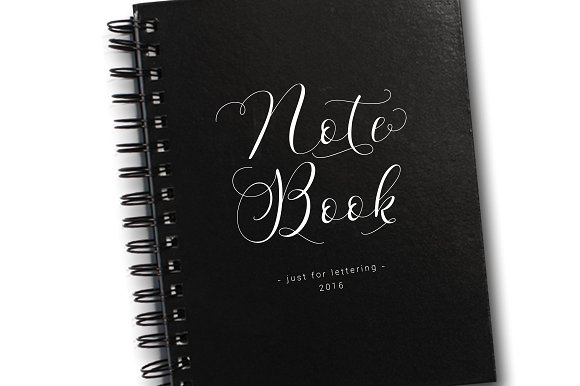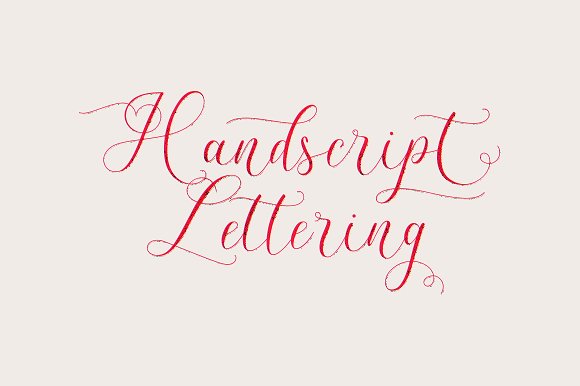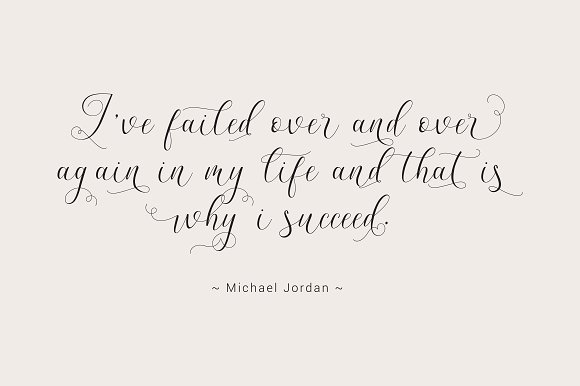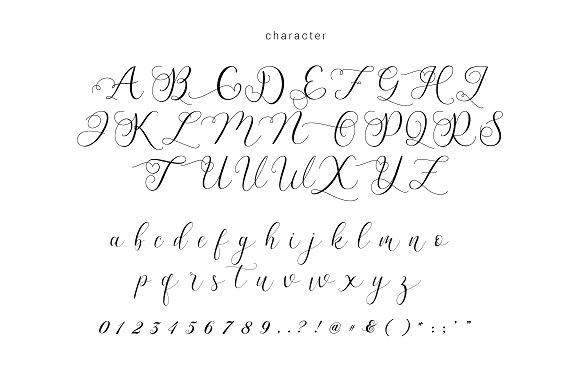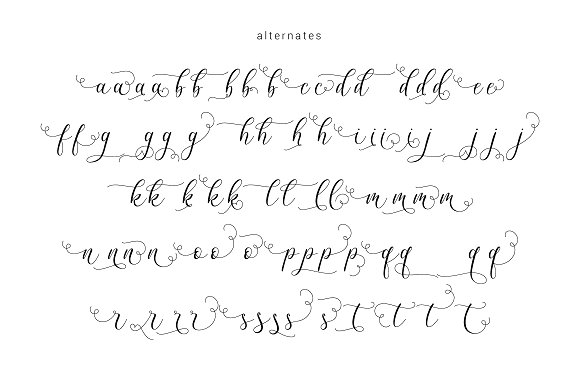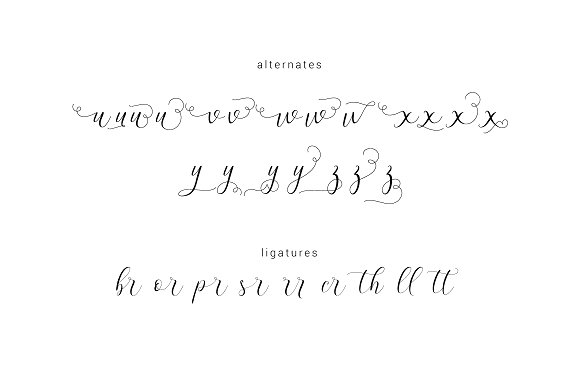
Unleashing Your Creativity with the Billaneiva Font
Have you ever sat down at your desk, staring at a blank page, and suddenly a burst of inspiration hits you? The words start flowing, and your imagination runs wild. This is exactly what happened to designers when they discovered the Billaneiva Font – a gorgeous handwritten font with super thin lines that brings a touch of elegance to any project.
The Billaneiva Font is perfect for adding a personal touch to your designs, from wedding invitations to social media graphics. Its unique style and versatility make it a valuable asset for designers looking to elevate their work. With its delicate lines and beautiful curves, the Billaneiva Font is sure to capture attention and leave a lasting impression.
Key Features of Billaineiva Font
- Unique Characteristics: Billaineiva Font features a unique blend of modern and traditional elements, with intricate details and subtle nuances that make it stand out from other fonts.
Billaneiva Font Review
Overall, I think the Billaneiva Font has some great qualities, but it also has some limitations. Let’s dive into what works well.
✨ The unique blend of modern and vintage elements in the Billaneiva Font makes it a standout choice for designers looking to add some visual interest to their projects. The font’s curves and lines are well-balanced, creating a sense of elegance and sophistication.
✨ Another strength of the Billaneiva Font is its versatility. It can be used for a wide range of applications, from logos and branding to body text and headlines. The font’s high legibility makes it easy to read, even at small sizes.
✨ Finally, the Billaneiva Font is highly customizable. With a range of styles and weights available, designers can tailor the font to fit their specific needs.
Limits and Drawbacks
⚠️ One of the biggest limitations of the Billaneiva Font is its lack of consistency across different platforms. In some instances, the font may not render properly, leading to inconsistencies in the design.
⚠️ Another potential drawback is the font’s complexity. While the unique blend of modern and vintage elements can be a strength, it can also make the font difficult to use for designers who are not experienced with font manipulation.
Overall, I would give the Billaneiva Font 3.5 out of 5 stars. While it has some great qualities, its limitations and inconsistencies hold it back from being a top-tier font. However, with careful use and customization, the Billaneiva Font can be a valuable addition to any designer’s toolkit.
Recommendation
- Use the Billaneiva Font for projects that require a unique, high-end look.
- Experiment with different styles and weights to find the perfect fit for your project.
- Be aware of the font’s limitations and inconsistencies, and take steps to mitigate them.
Tips for Getting the Most Out of the Billaneiva Font
To get the most out of the Billaneiva font, use it for:
- Headings and titles to add a touch of elegance.
- Body text to create a cohesive and sophisticated look.
- Combining it with other fonts to create a unique and eye-catching design.
The Billaneiva font is perfect for:
- Designing business cards and letterheads.
- Creating marketing materials and brochures.
- Developing websites and mobile apps.